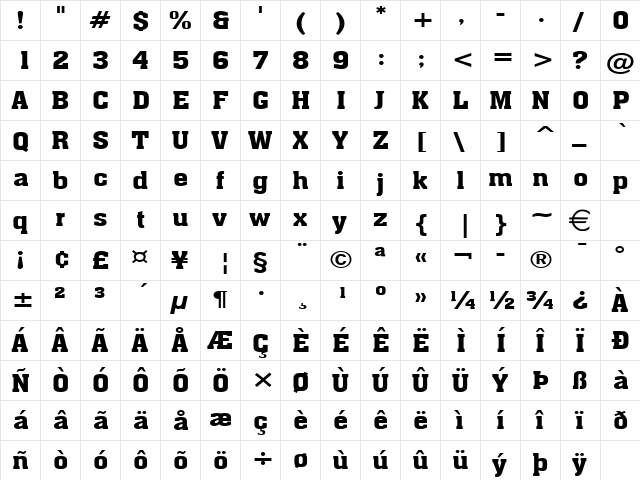
AcheWide Bold Font Preview
AcheWide Bold
Design Context for AcheWide Typeface
AcheWide is a composed and adaptable typeface that performs quietly and consistently across a wide range of design contexts. Its bold stroke weight gives it real presence on the page.
Pro Tip: Use AcheWide in both headline and body roles to test its range before committing to a single application.